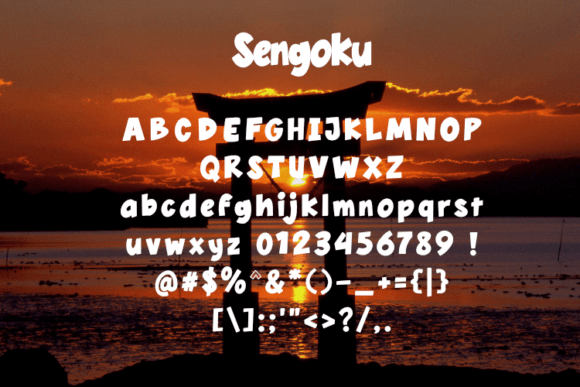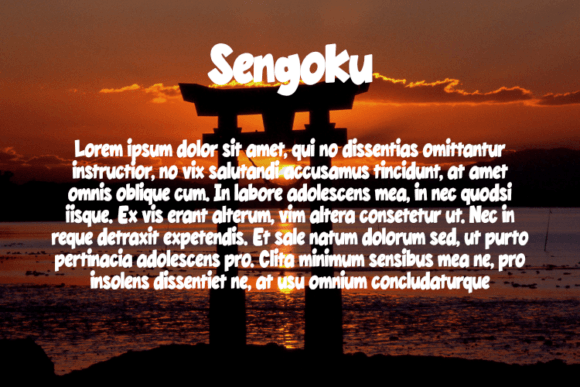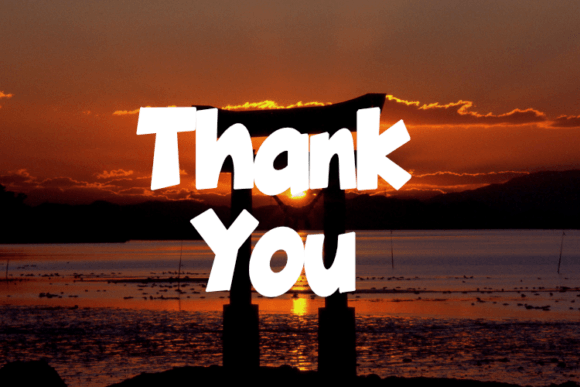
Introduction to Sengoku Font
As a designer, there’s nothing quite like the thrill of discovering a new typeface that can elevate your creative project from ordinary to extraordinary. For me, that moment came when I stumbled upon the Sengoku Font – a masterful blend of flair and functionality that has since become an indispensable design resource.
| 👤 Author | Eric Kusuma |
With its sleek, modern aesthetic and versatility across all software platforms, Sengoku Font is the perfect companion for designers seeking to add a touch of elegance to their work. Whether you’re crafting a stunning logo, designing a high-quality brochure, or simply looking for a free download to spice up your social media graphics, Sengoku Font is an adaptable typeface that’s sure to impress. Its transparent background and compatibility in OTF and TTF files make it a seamless addition to any creative project.
Key Features of Sengoku Font
- High-quality font design for creative projects, ideal for graphic designers and artists.
- Features a unique and intricate design style, perfect for adding a touch of Japanese flair to your work.
- Perfect for use in logos, branding materials, and other creative projects that require a unique and eye-catching font.
Honest Review: Sengoku Font
I recently had the chance to work with the Sengoku Font, and I must say it’s been a great addition to my design resource library. The high quality of this font is undeniable, making it perfect for any creative project that requires a touch of elegance and sophistication.
One of the things that stands out about the Sengoku Font is its versatility. It’s available for free download, which is always a plus, and it comes in a range of weights and styles that can be used to create a wide variety of designs. I’ve used it for everything from logos to typography-based art, and it’s performed beautifully every time.
Here are some of the things that work well with the Sengoku Font:
- ✨ High-quality design that looks great in print and digital formats
- ✨ Versatile and adaptable to a wide range of design styles
- ⚠️ The font doesn’t have a transparent background option, which can make it difficult to use in certain design situations
- ⚠️ Some of the weights and styles may not be as extensive as other fonts in the same category
Overall, I’m really impressed with the Sengoku Font, and I would highly recommend it to any designer looking for a high-quality, versatile font for their next creative project.
Sengoku Font
The Sengoku Font is a free design resource perfect for creative projects that require a high-quality, unique typography. With its elegant and stylish design, this font is ideal for various applications, from print materials to digital media.
Tips for Getting the Most Out of Sengoku Font
For optimal results, use the Sengoku Font on a transparent background to create a seamless and professional design.
Combine the Sengoku Font with other high-quality design elements to create a unique and eye-catching visual identity.
The Sengoku Font is ideal for:
Business cards and letterheads
Brochures and flyers
Websites and digital marketing materials
Print materials and packaging design